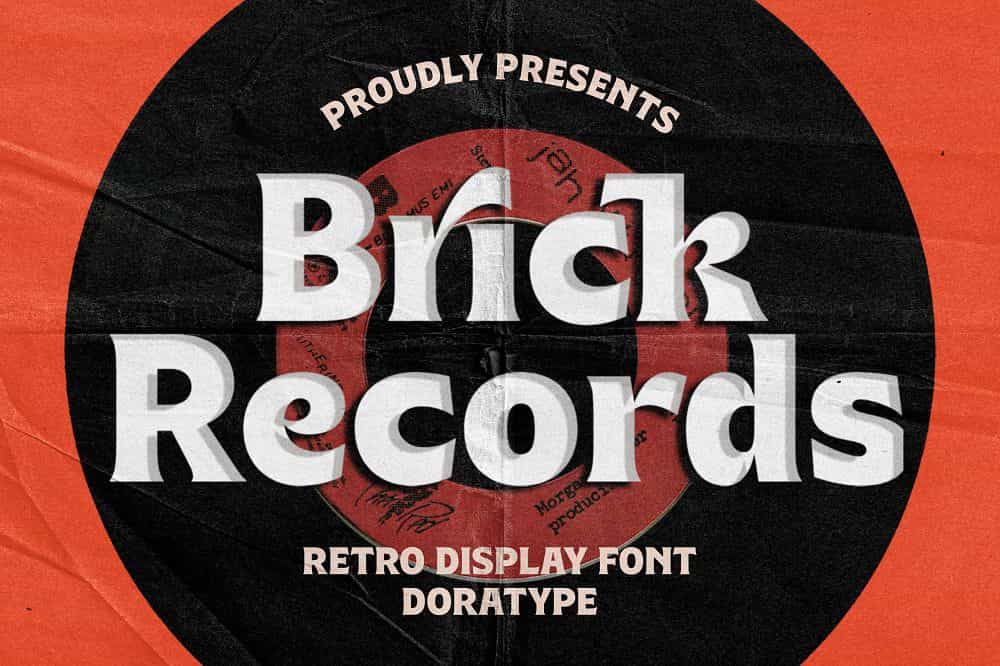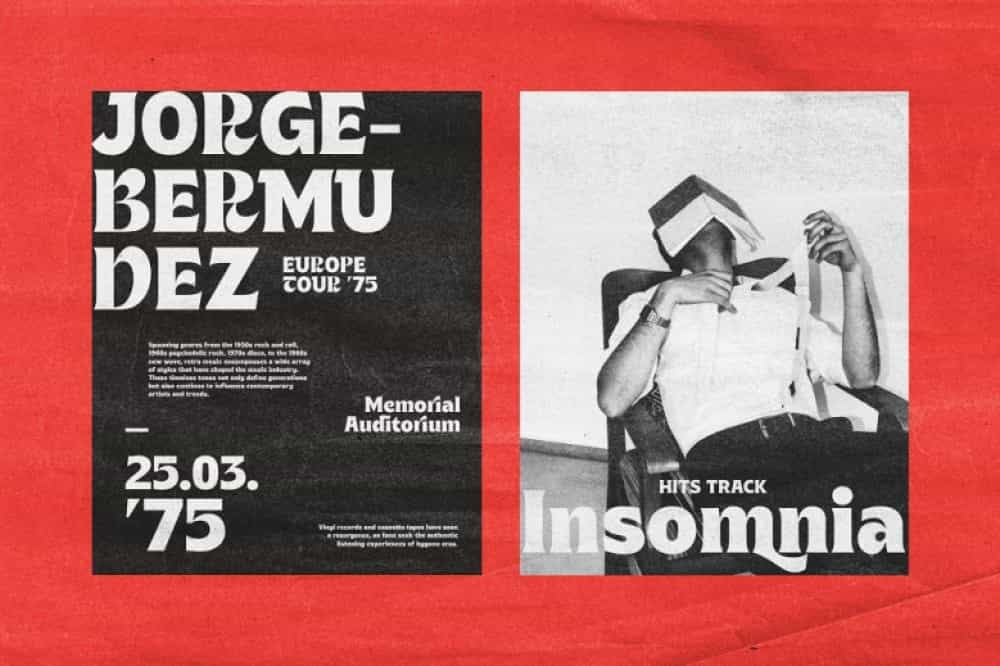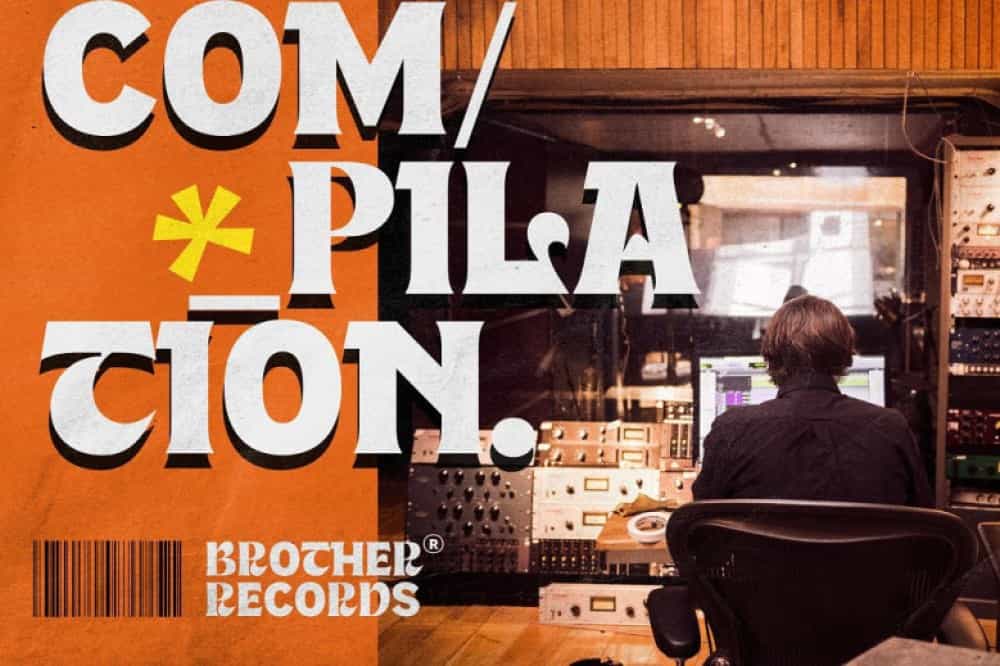
Brick Records is an energetic, classical and trendy font, which has a retro look and feel! This font is playful but at the same time gives off a very sophisticated vibe and you will adore it. As an alternative, it is possible to use the additional ligatures, for which this typeface is definitely equipped.